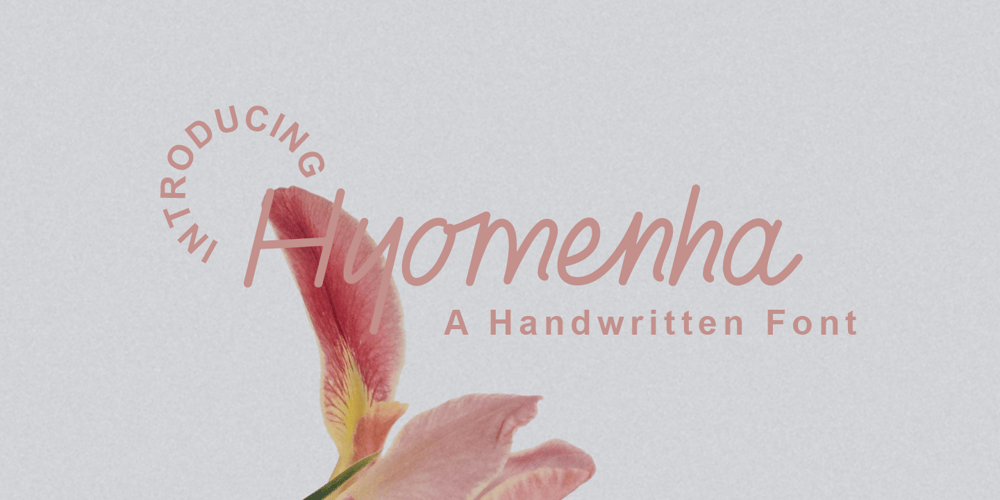
Hyomenha Font Family was designed by Afif Hidayat Alhabsi and published by Lafitte 58. Hyomenha contains 1 styles and family package options. Hyomenha is an elegant script fon and handwritten font. Its natural and unique style makes it incredibly fitting to a large pool of designs.No matter the topic, this font will be an incredibly asset to your fonts library, as it has the potential to elevate any creation, this font was designed to enhance the beauty of your projects.